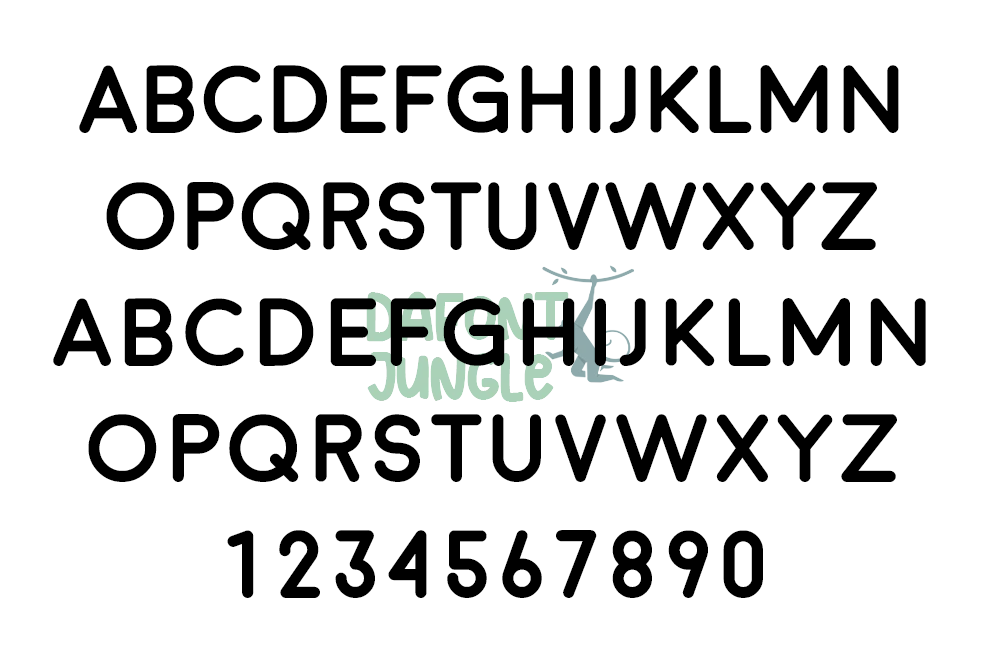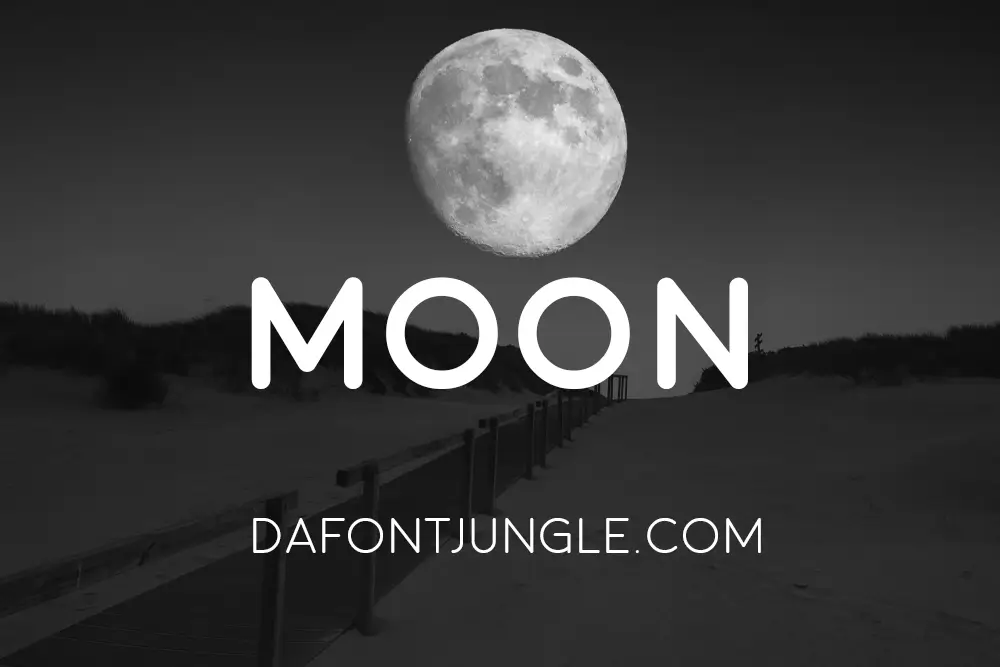
Moon Typeface – Minimalist Urban Sans Serif Font
Moon is a clean and modern sans serif typeface designed for simplicity and style. With over 240 characters, it offers versatility for logos, headlines, packaging, and branding projects. Its minimalistic urban aesthetic makes it easy to pair with other fonts and adapt across a wide range of creative uses.